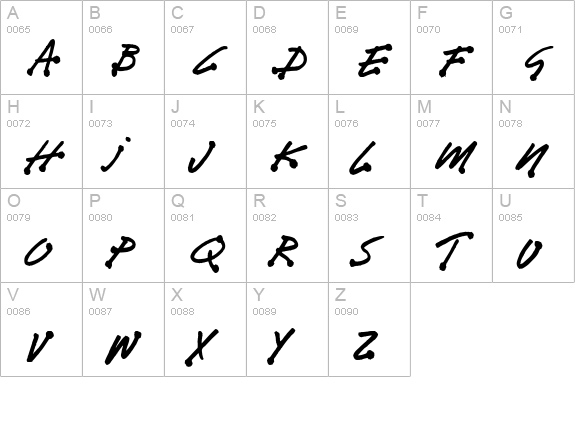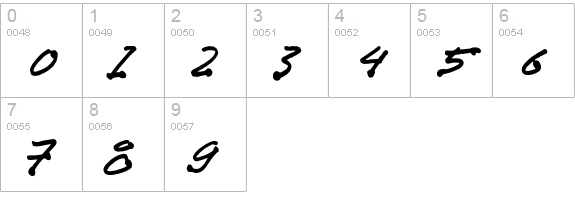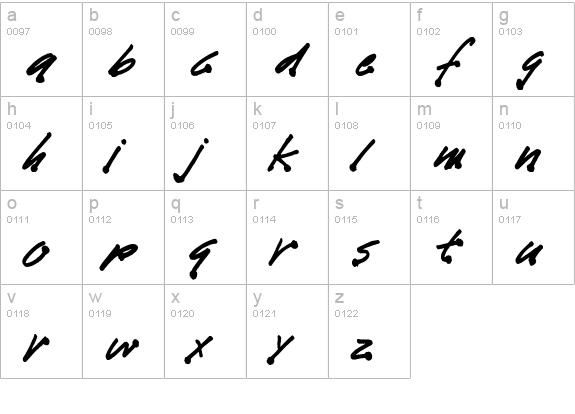
Bleedblob BTN Font Details
Bleedblob BTN font is a unique and eye-catching typeface that is perfect for adding a bold and modern touch to your designs. Its edgy and playful style makes it great for headlines, posters, branding, and more. This font features a striking combination of thick and thin lines, giving it a dynamic and energetic look. Best of all, Bleedblob BTN font is available for free download at FontsMarket.com. Whether you are a designer looking to experiment with new fonts or just someone who appreciates stylish typography, this font is a must-have addition to your collection. Don't miss out on the opportunity to enhance your projects with this versatile and captivating font - download Bleedblob BTN today!